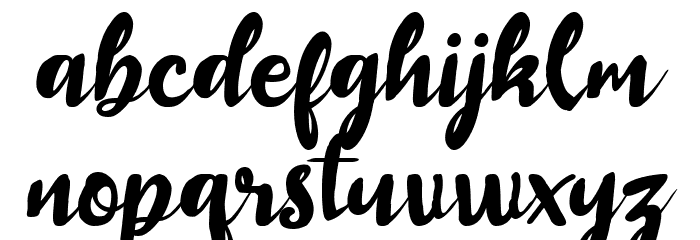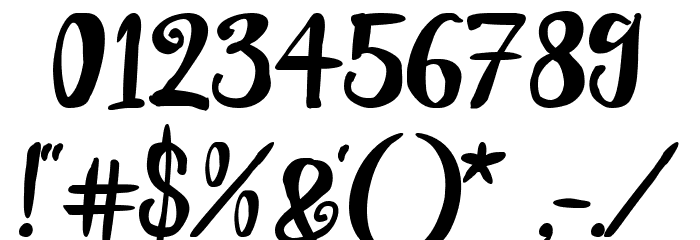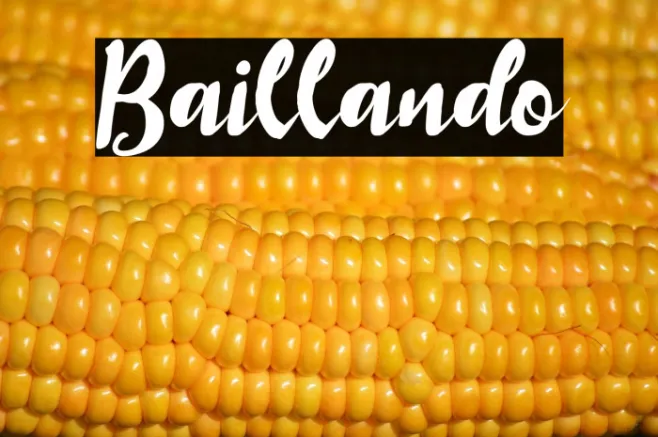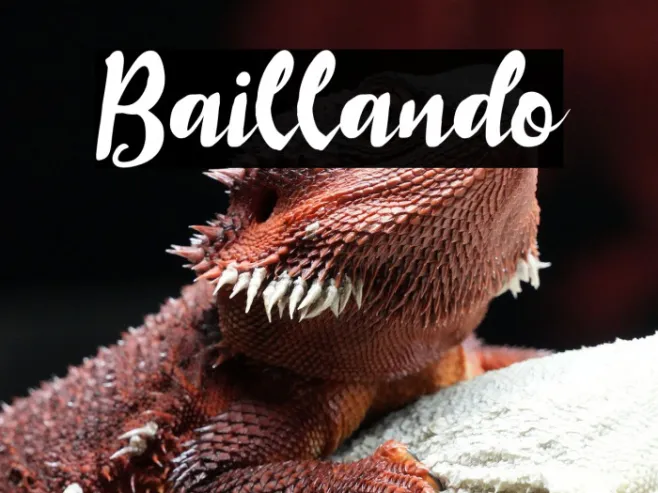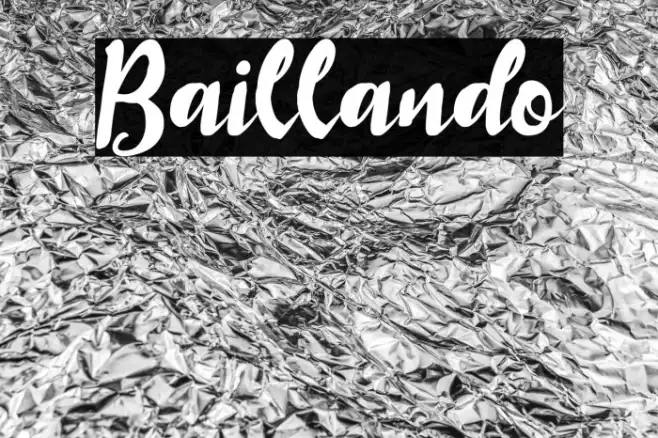
Baillando Font
This font features a bold and expressive script style, characterized by its flowing, cursive letters that convey a sense of elegance and dynamism. The uppercase letters are slightly more formal, with a consistent slant and smooth curves, while the lowercase letters maintain a playful and artistic flair. The numbers and special characters are designed to match the overall aesthetic, ensuring a cohesive look across all text. The strokes are thick and confident, giving the font a strong presence that stands out in any design. This font is perfect for projects that require a touch of sophistication and creativity.
A bold, expressive script font with flowing, cursive letters.
- Proposed Projects: Ideal for wedding invitations, branding, logos, and artistic posters.
- Category: Script
- Use Case: Logos, Headlines, Invitations